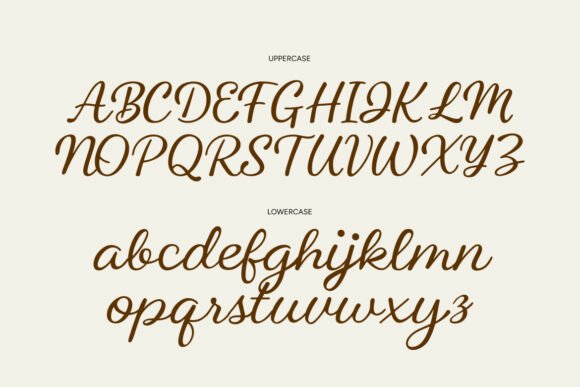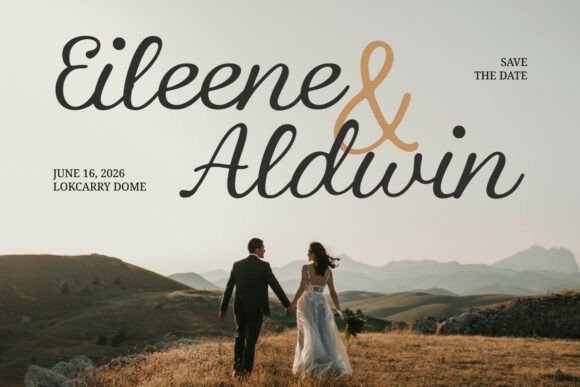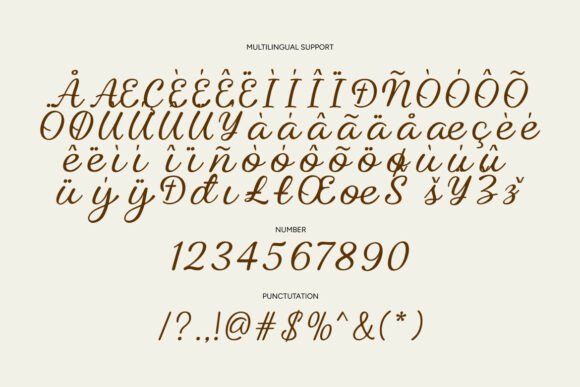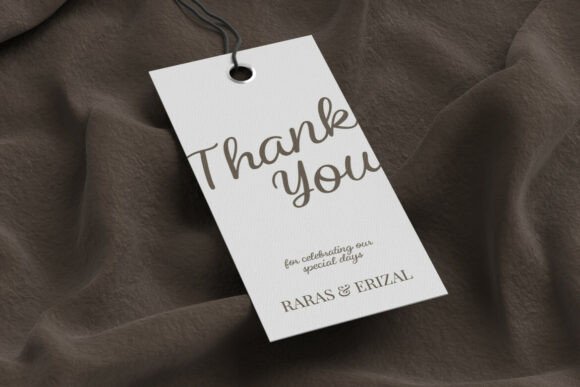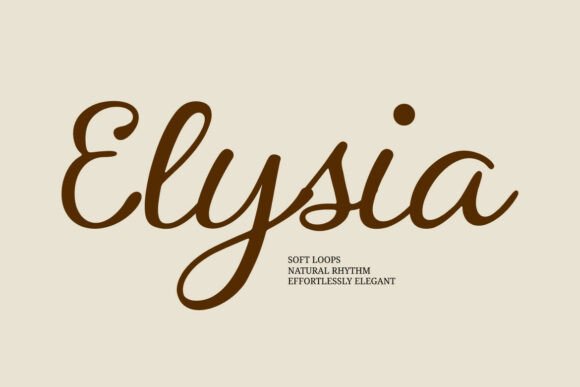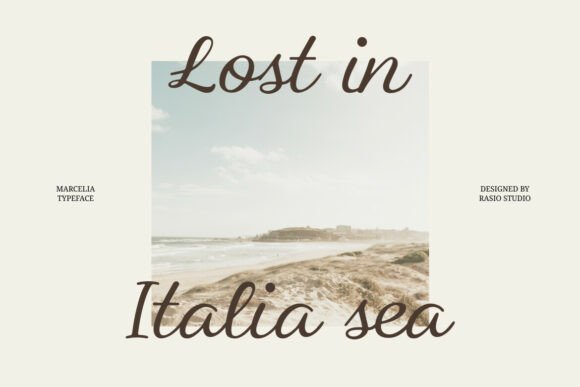
Introduction to Marcelia Font
Exude timeless grace with Marcelia, a sophisticated script typeface that captures a “refined-and-romantic” soul.
This font features fluid, hand-inked letterforms with a rhythmic, natural slant and delicate monolinear strokes that mimic the effortless beauty of expert penmanship With its warm, organic flow and polished posture, Marcelia is the premier choice for independent wedding stationery, high-end lifestyle branding, artisanal cosmetics logos, and high-impact “personal-luxury” social media headers.
Key Features of Marcelia Font